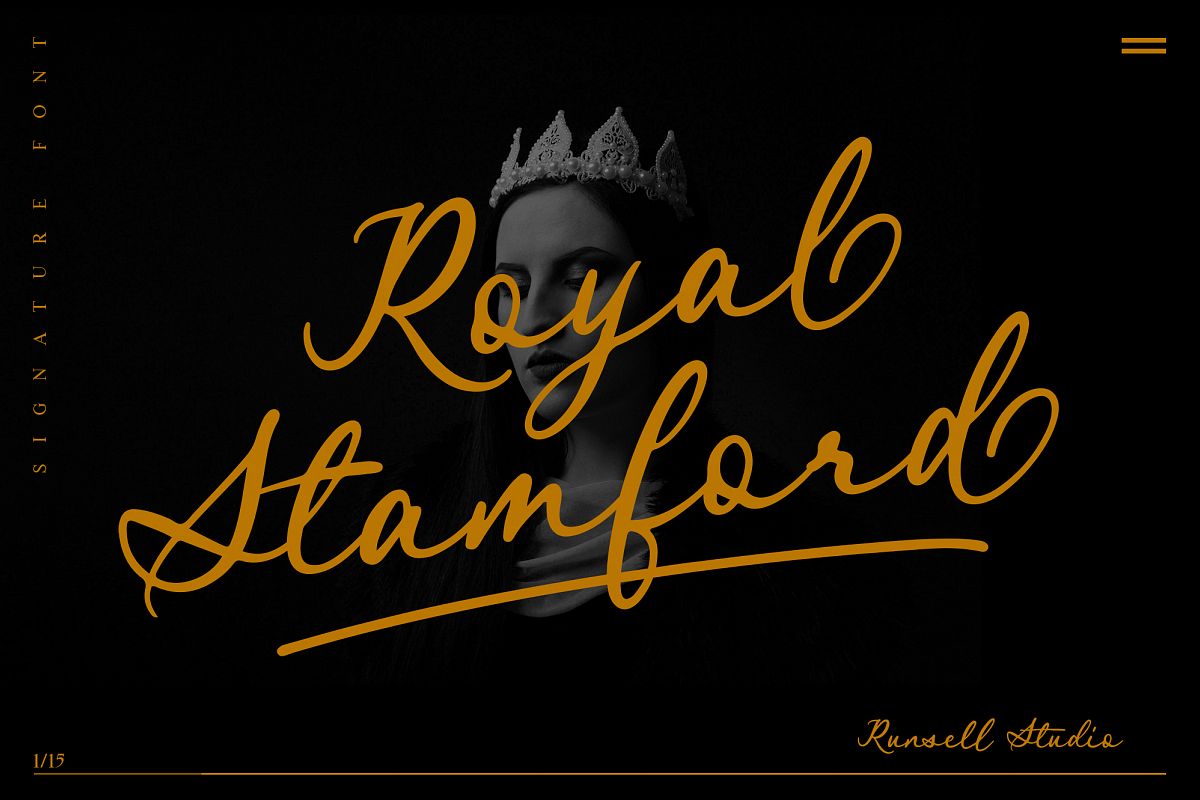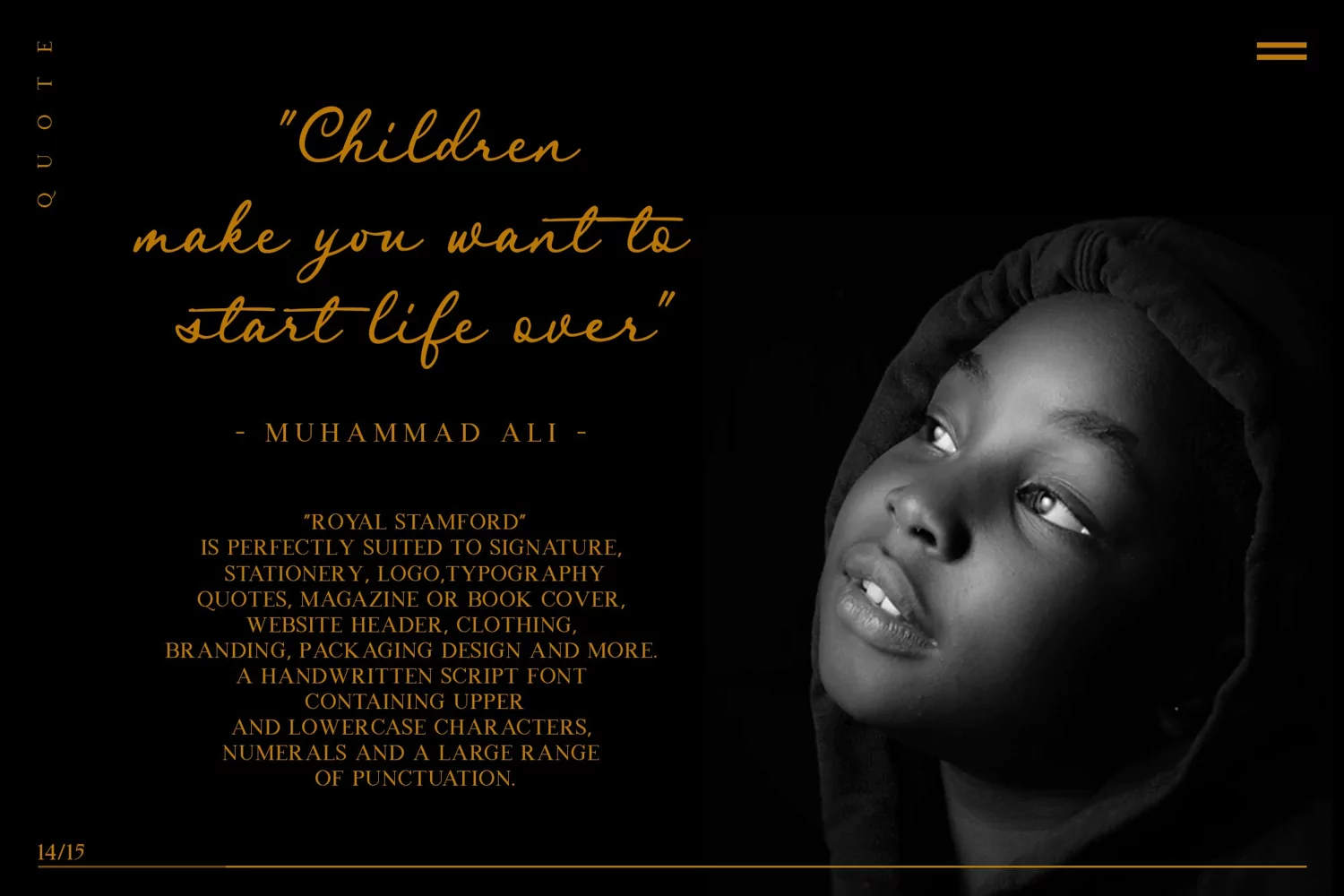
Royal Stamford is a classy handwriting font with a distinctive curve, inside with some interesting features that are perfect for a authentic-style project.
Royal Stamford is perfectly suited to signature, stationery, logo, typography quotes, magazine or book cover, website header, clothing, branding, packaging design and more. A handwritten script font containing upper and lowercase characters, numerals and a large range of punctuation.This font including alternate glyph.To access the alternate glyphs, you need a program that supports OpenType features such as Adobe Illustrator CS, Adobe Photoshop CC, Adobe Indesign and Corel Draw.Royal Stamford Include:
- Basic Character ( Uppercase and Lowercase, Numerals, Symbol and punctuation )
- Foreign Languages Support ŽžŠŒšŸÀÁÂÃÄÅÆÇÈÉÊËÌÍÎÏÐÑÒÓÔÕÖØÙÚÛÜÝßàáâãäåæçèéêëìíîïðñòóôõöøùúûüýÿ
- Swashes